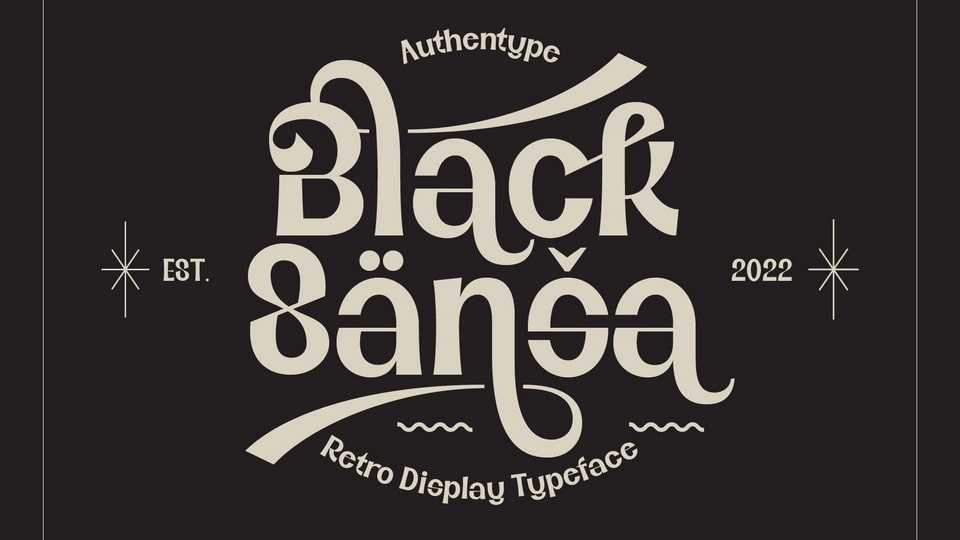
Download Black Sansa font, a retro display typeface. Black Sansa font is perfect for retro poster, magazine, retro beauty branding design in vintage style, suitable for any retro design concept.
Designer: Authentype